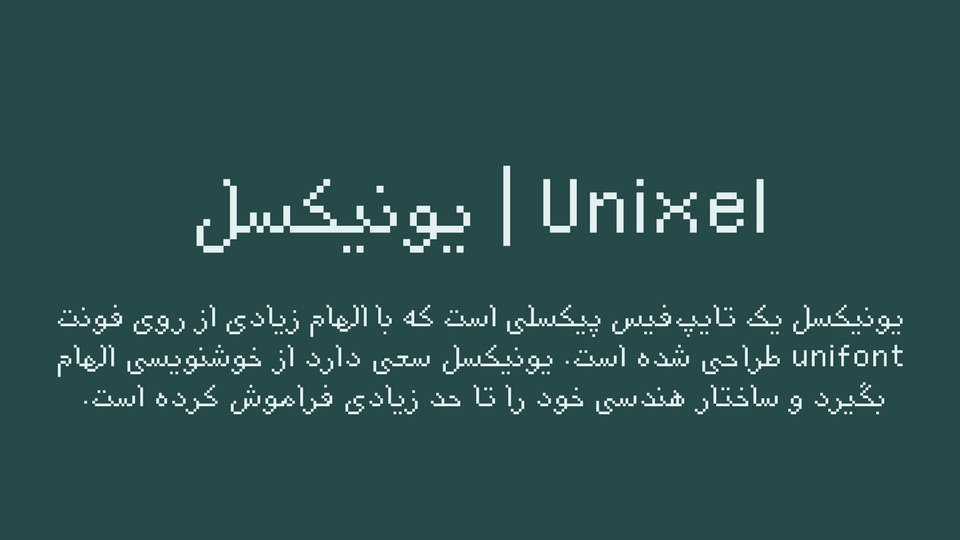
Download Unixel font, a pixel typeface inspired by unifont. Unixel tries to take inspiration from the Arabic script and has largely forgotten the geometric structure.
Designer: Mohammad Darvishi